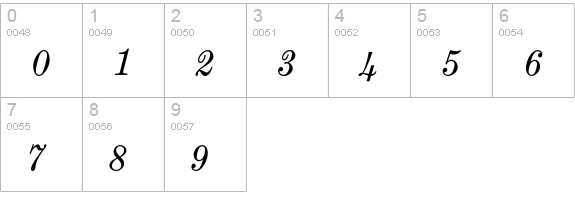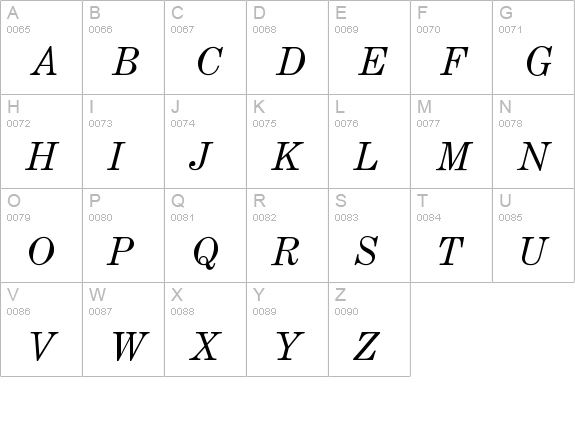
Century ATF Expanded Italic Font Details
Century ATF Expanded Italic is a distinctive, extended-width, italic variant in the Century typeface family \xE2\x80\x94 well suited to design and typography projects.
The Century ATF Expanded Italic font exudes elegance and sophistication with its sleek and modern design. Its italicized style adds a touch of flair and drama to any project, making it perfect for a wide range of applications such as branding, advertising, and editorial design. The elongated letterforms create a sense of movement and fluidity, while the precise spacing ensures readability and legibility. Best of all, this exquisite font is available for free download at FontsMarket.com. Whether you're a professional designer looking to enhance your portfolio or a creative enthusiast seeking to elevate your projects, Century ATF Expanded Italic is a versatile and stylish choice that will surely make a lasting impression. Don't miss out on the opportunity to add this beautiful typeface to your font collection today!